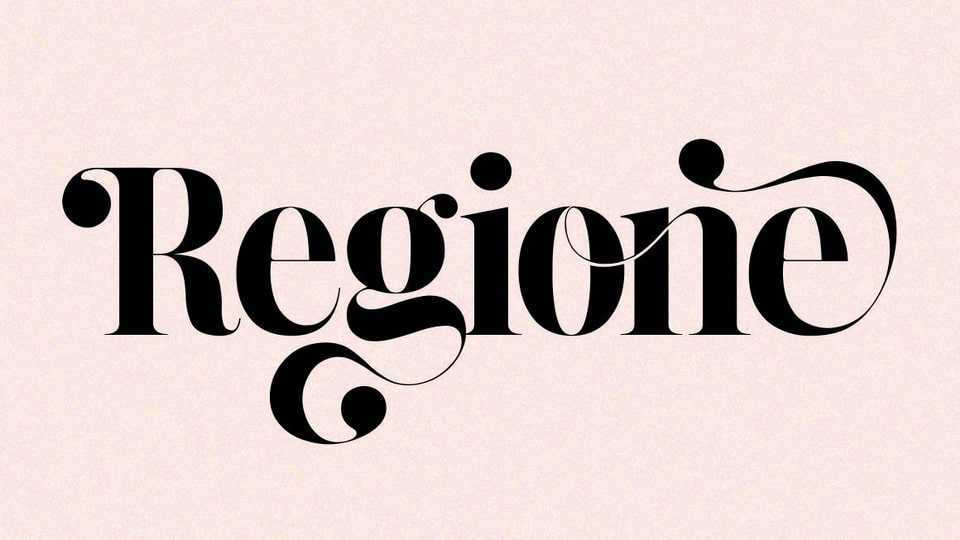
Download Regione font, a modern serif typeface that embodies timeless elegance and aesthetic appeal. Regione font accentuates uniqueness with a variety of stylish alternatives.
Designer: Reyrey Blue